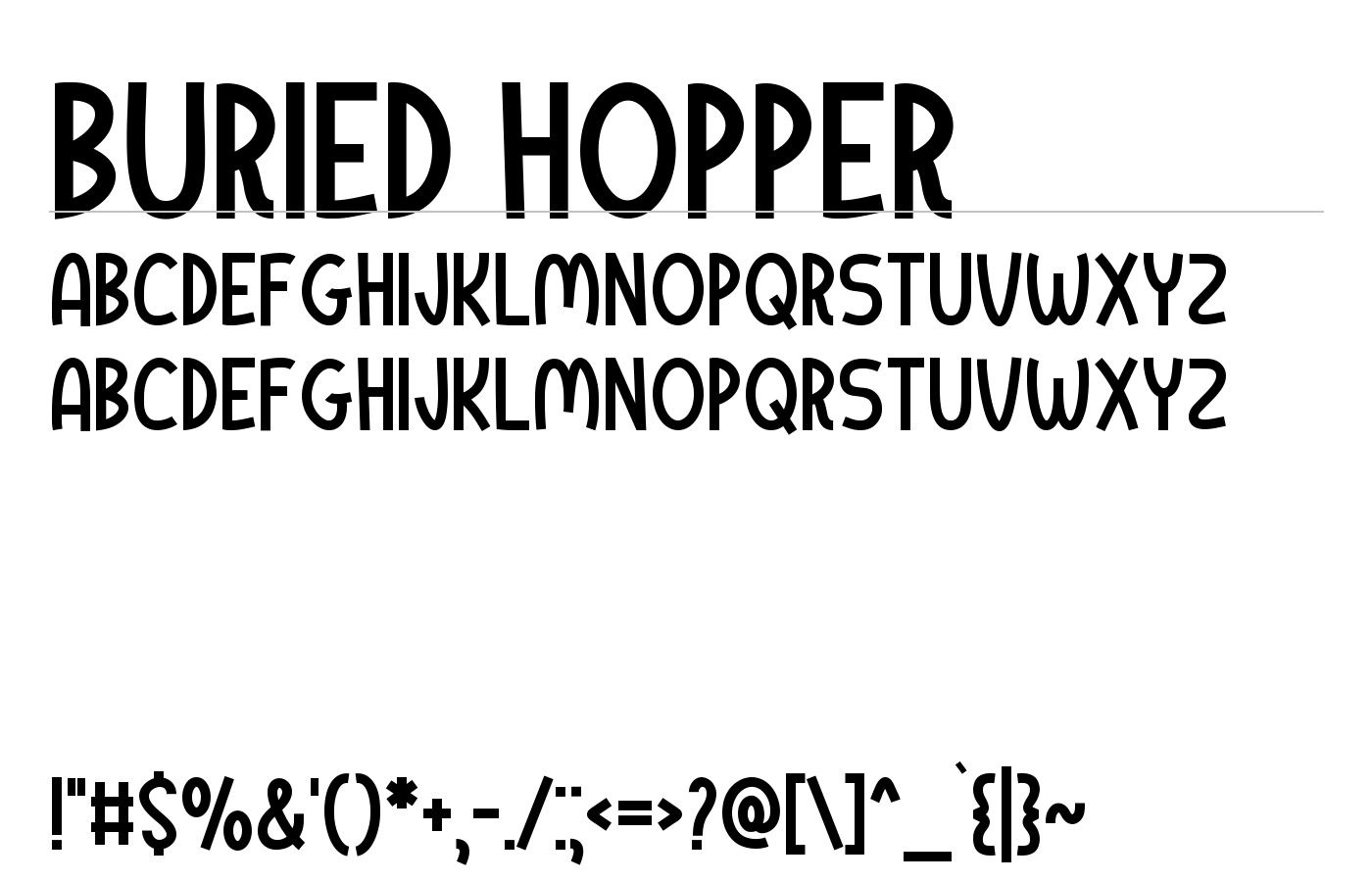
Buried Hopper is a playful sans serif font with a narrow, tall structure and quirky letterforms that showcase a fun, hand-drawn vibe. Its uneven strokes and distinctive curves give it a whimsical yet approachable personality, making it ideal for creative branding, children’s projects, and casual headlines. This font’s unique style adds character and charm where a relaxed, friendly tone is desired.
Buried Hopper Font
About Buried Hopper Font